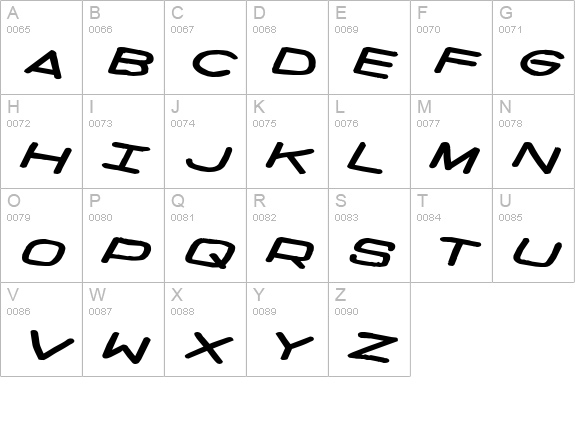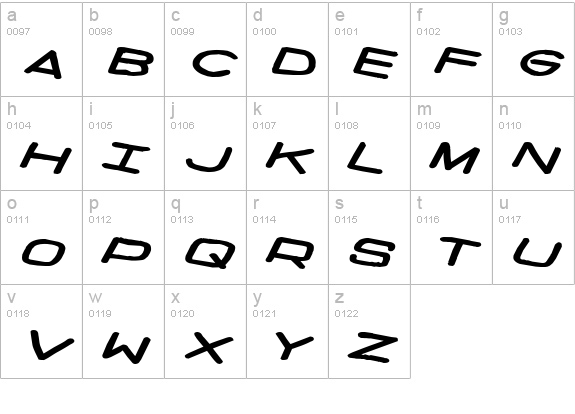
PrivateInvestigations font is a sophisticated and versatile typeface that exudes a sense of mystery and intrigue. With its sleek and modern design, this font is perfect for adding a touch of elegance to any project. Whether you're working on a logo, website, or print materials, PrivateInvestigations font will make your text stand out with its unique style. What's even better is that PrivateInvestigations font is available for free download at FontsMarket.com. This means you can easily access this high-quality font without any cost, making it a valuable addition to your design toolkit. Don't miss out on the opportunity to enhance your projects with the captivating allure of PrivateInvestigations font. Download it now and start creating captivating designs today!